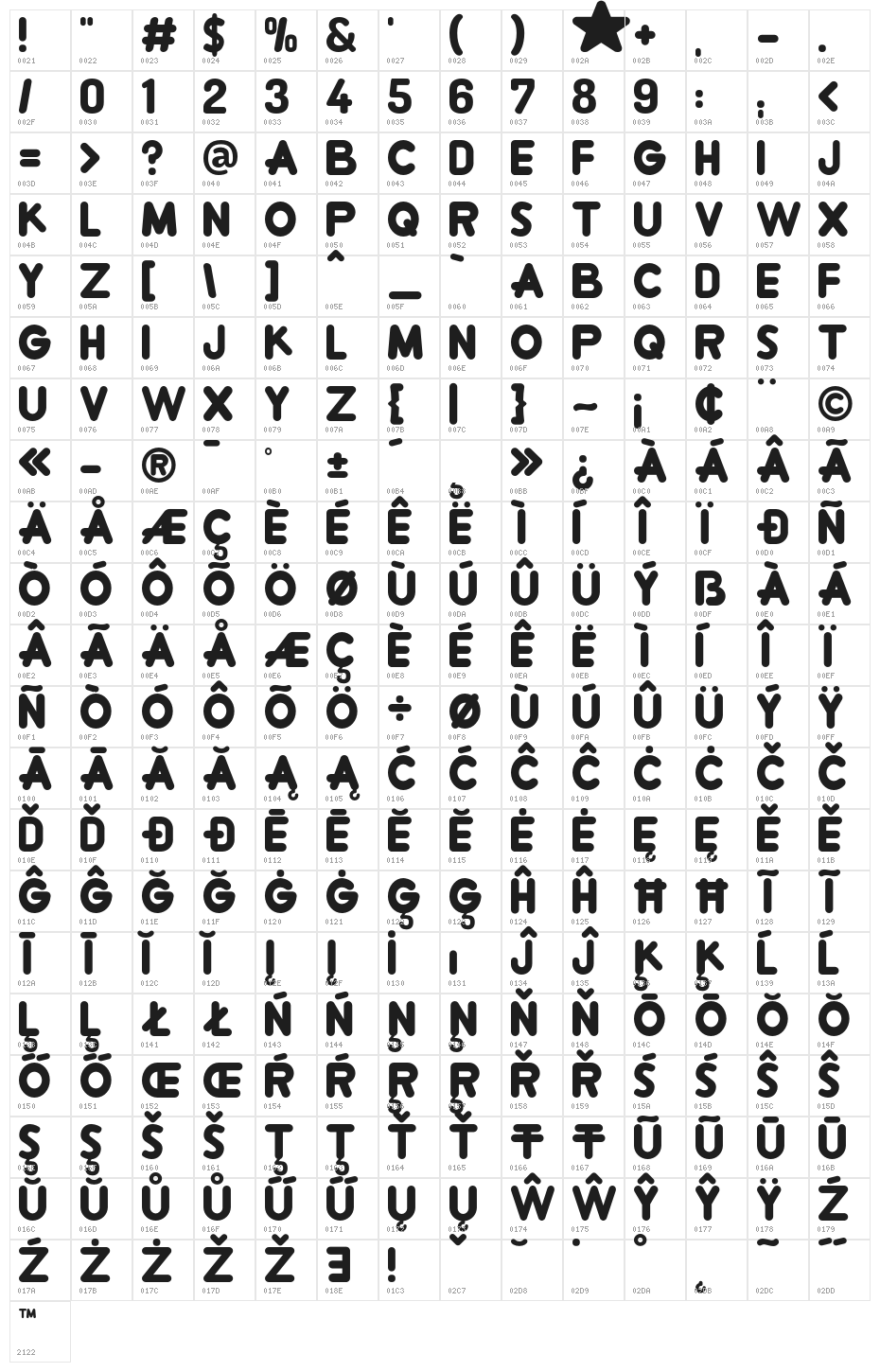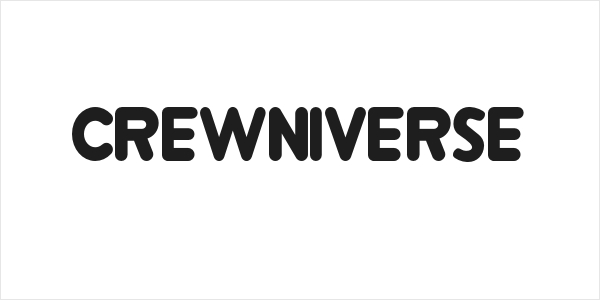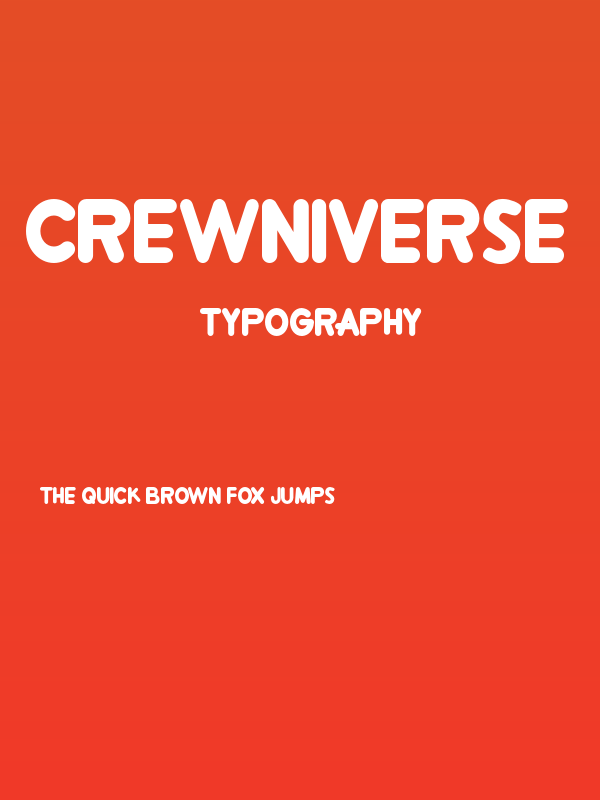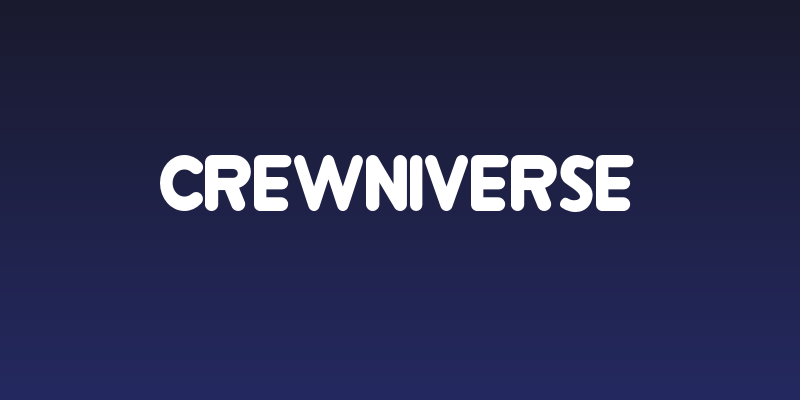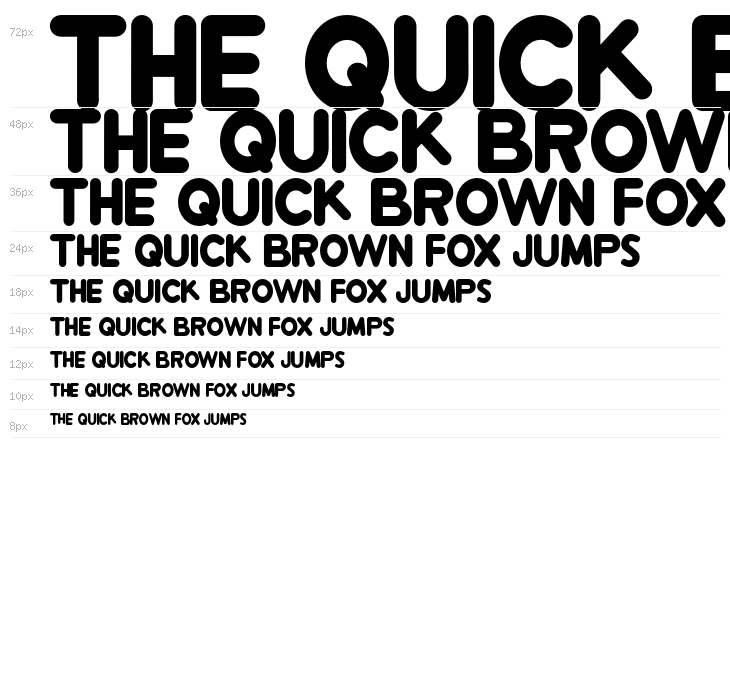
Crewniverse Font
Crewniverse Description
This font features bold, rounded characters with a playful and friendly appearance. The letters are evenly spaced, providing a clean and approachable look. The rounded edges give it a soft, welcoming feel, making it ideal for projects that require a touch of warmth and approachability. The numerals and special characters maintain the same rounded style, ensuring consistency across all text elements. This font is versatile, suitable for both digital and print media, and can be used in a variety of design contexts.
| Proposed Projects | Ideal for children's books, playful branding, posters, and social media graphics. |